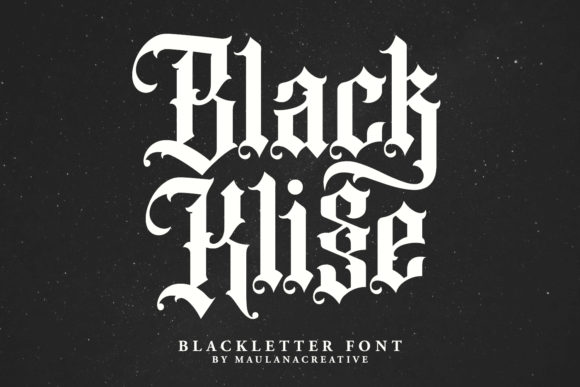
Introducing Black Klisse, the font that will add a touch of drama and authenticity to your next project. This bold and captivating blackletter font is perfect for creating eye-catching posters, logos, and other designs that are sure to make a lasting impression.
Black Klisse is inspired by the classic blackletter fonts of the past, but with a modern twist that makes it perfect for contemporary designs. The result is a font that is both stylish and timeless, making it the perfect choice for any project that needs a touch of old-world charm.
Whether you're creating a poster for an upcoming event, a logo for your new business, or simply want to add some flair to your latest design project, Black Klisse is the perfect font for the job. Its bold and confident strokes will command attention and make your words stand out from the crowd.
So if you're looking for a font that will add a touch of drama and authenticity to your next project, look no further than Black Klisse. It's the perfect font for creating designs that are sure to make a lasting impression.
* It's bold and authentic, making it perfect for creating eye-catching designs.
* It's versatile and can be used for a wide range of projects, from posters to logos to invitations.